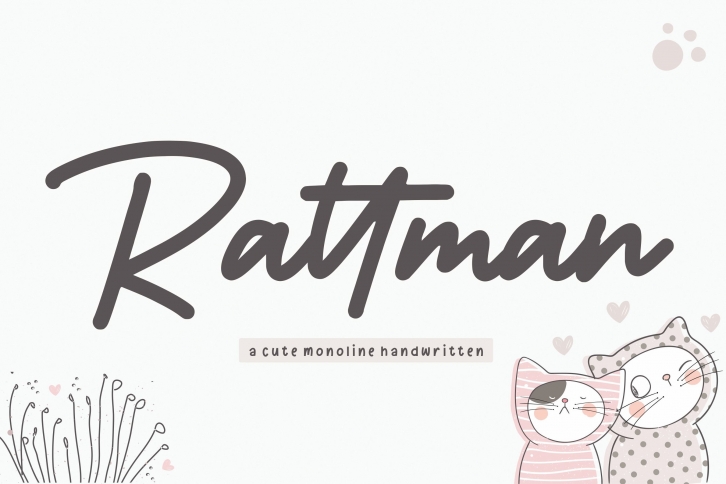
Rattman Cute Monoline Handwritten is a great font that was designed by Balpirick. Imagine the amount of combinations you can create using this font! The archive is 15.55 MB and it was released on July 16, 2020. Rattman Cute Monoline Handwritten looks beautiful on wedding invitations, greeting cards, logos, posters, labels, t-shirt designs, logos, business cards and is perfect for use in ink or watercolor works, fashion, magazines, packaging and food menus, children's books and more!